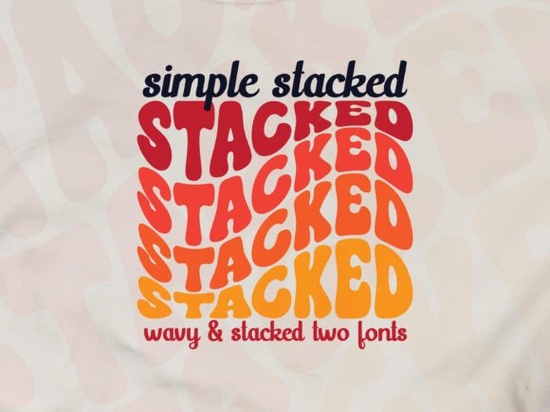
If you’ve been hunting for a font that brings retro charm with just the right amount of playful energy, the Simple Stacked Font might be exactly what your next project needs. It’s got that groovy wavy effect and triple rainbow layering that feels nostalgic but still fresh perfect for t-shirts, posters, stickers, or branding that wants to stand out without trying too hard. And if you’re already working in Adobe Illustrator, you’ll find it especially easy to customize and tweak to fit your vision.
What kind of projects does this font work best for?
This isn’t the kind of font you’d use for a corporate annual report and that’s a good thing. The Simple Stacked Font shines when you’re designing things like:
- Vintage-inspired merch (think band tees or skate shop logos)
- Social media graphics with bold, eye-catching headlines
- Kids’ party invites or birthday banners
- Print-on-demand products like mugs, totes, or phone cases
- Small business branding for cafes, boutiques, or creative studios
It pairs especially well with other display fonts that lean into fun or texture like Funky Grunge for contrast, or Marshmellow if you want to keep things soft and bouncy. If you’re going for layered typography, try stacking it with Varsity Narrow for a sporty-retro combo.
Is this font beginner-friendly?
Yes as long as you’re comfortable using design software. Since it’s designed for Adobe Illustrator, you’ll get the most flexibility there. You can easily adjust spacing, recolor layers, or even ungroup the stacked elements to create custom effects. If you’re new to Illustrator, don’t worry there are tons of free tutorials online that walk you through basic text manipulation.
One thing to note: because of its triple-layered rainbow style, this font works best at larger sizes. Tiny text might lose some of that visual pop, so save it for headlines, logos, or featured phrases rather than body copy.
How does it compare to other rainbow or retro fonts?
There are plenty of “fun” fonts out there, but not all of them hold up in real-world use. Some feel gimmicky after five minutes. Others are so stylized they become hard to read. The Simple Stacked Font strikes a nice balance it’s decorative, sure, but still legible and versatile.
If you like the rainbow vibe but want something more delicate, check out Rainbow Darling Duo. It’s got a softer, hand-lettered feel that works beautifully for wedding invites or baby announcements. Or if you’re drawn to the stacked look but want something more minimalist, browse through the Simple Stacked collection there are variations with different weights and spacing options.
Any tips for getting the most out of this font?
Here are a few quick ideas to help you make the most of it:
- Play with color. The default rainbow is fun, but try swapping in pastels, neons, or even monochrome tones for a different mood.
- Add a stroke or shadow. A thin black outline can help the letters pop against busy backgrounds.
- Use sparingly. One headline or logo mark is often enough let the font do the talking without overcrowding your layout.
- Pair with clean sans-serifs. Balance its busyness with something simple like Helvetica or Montserrat for supporting text.
And if you’re ever stuck on how to style it, take a cue from 70s album covers or 90s skateboard graphics that’s where this font really feels at home.
Fonts like this one remind us that design doesn’t always have to be serious to be effective. Sometimes, a little wave, a splash of color, and a stacked letterform is all you need to make someone smile or click “add to cart.”